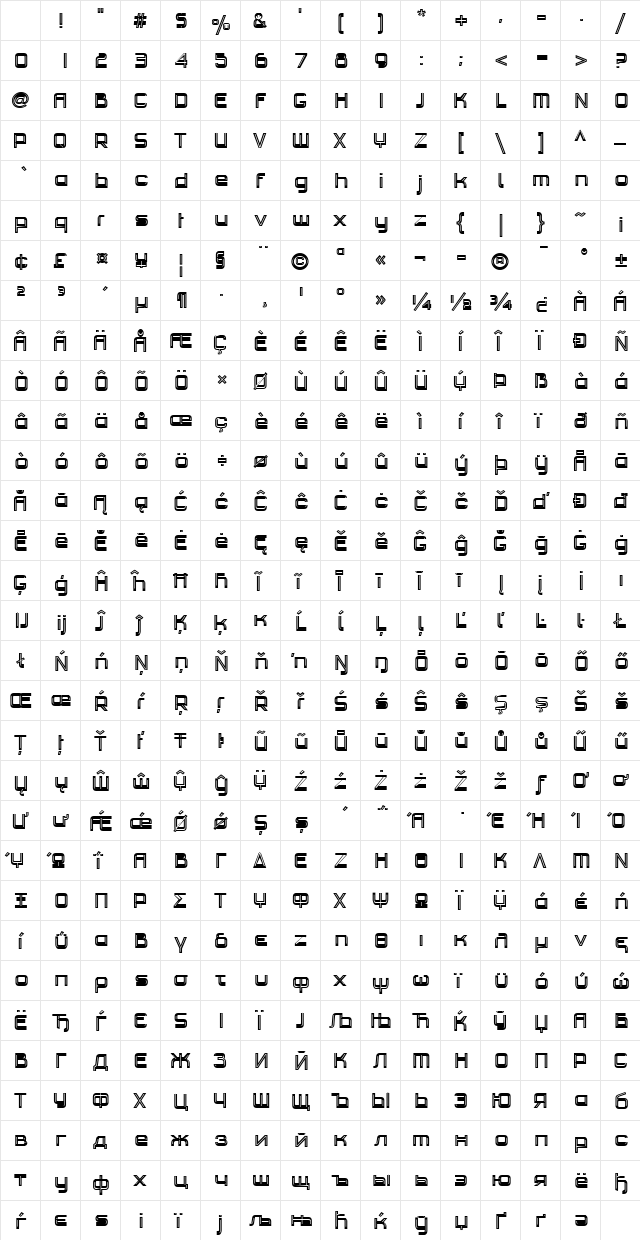
Complete PF HausSquare Pro Bold Outline glyph index. Displaying only characters natively supported by PF HausSquare Pro Bold Outline font.
PF HausSquare Pro is built around its visual character rather than neutral utility - its distinctive forms are designed to make an impression at display sizes. Its bold stroke weight gives it real presence on the page.
Font Pairing: Pair with a clean neutral sans-serif for body copy to let PF HausSquare Pro's character lead without overwhelming the composition.
Pro Tip: Use PF HausSquare Pro exclusively at display sizes - it was designed to be seen, not read at length. Let a neutral companion handle body copy.